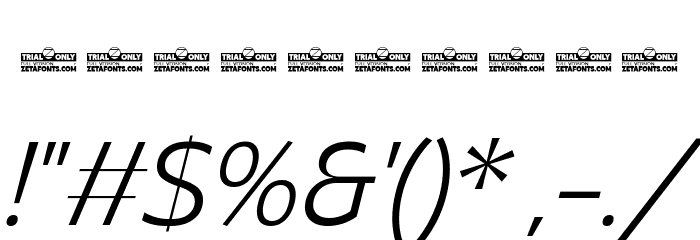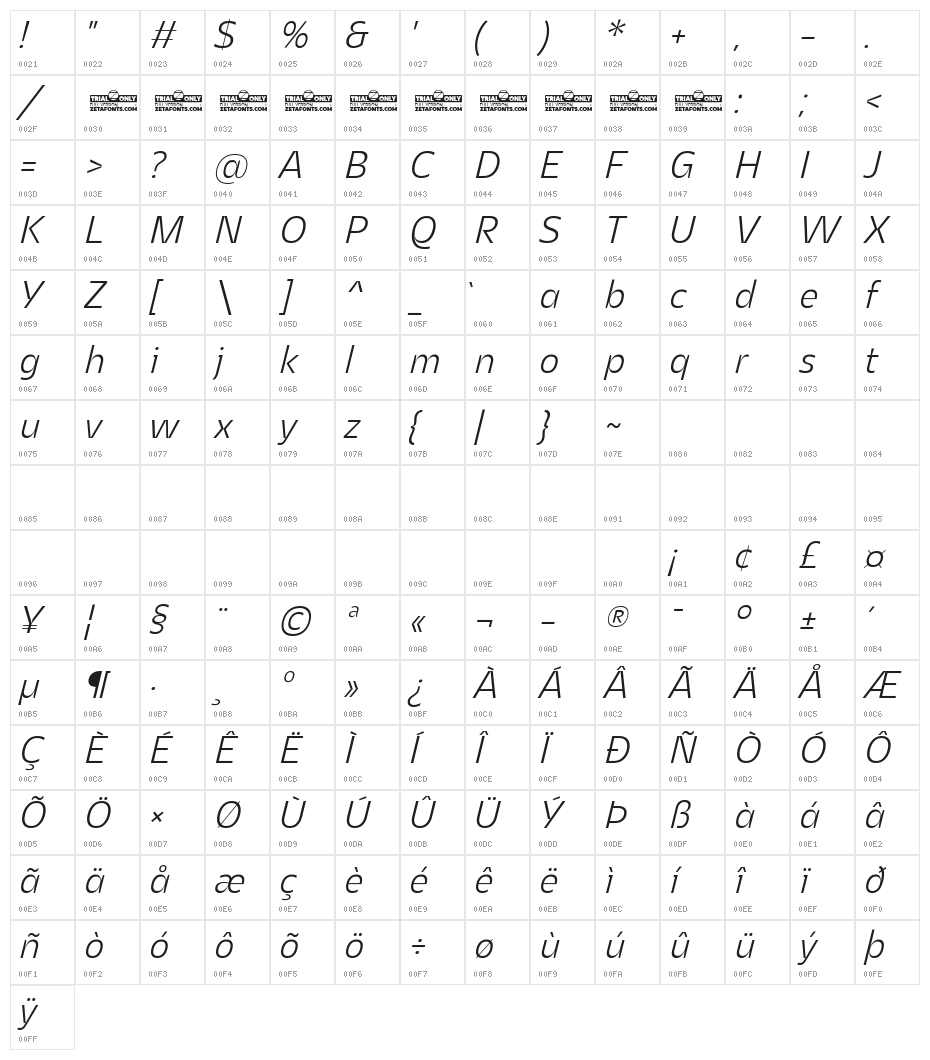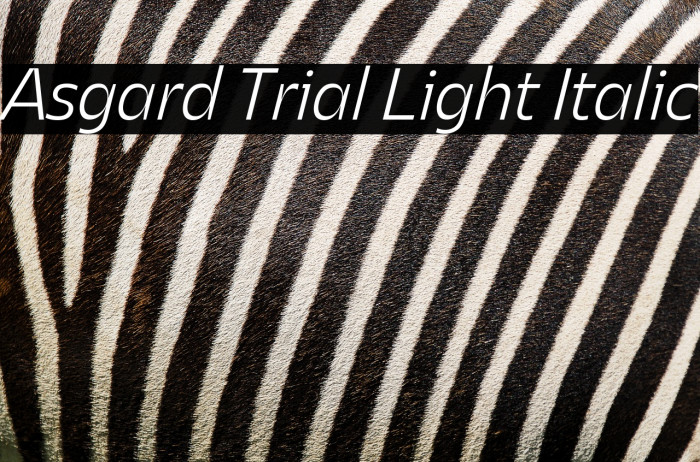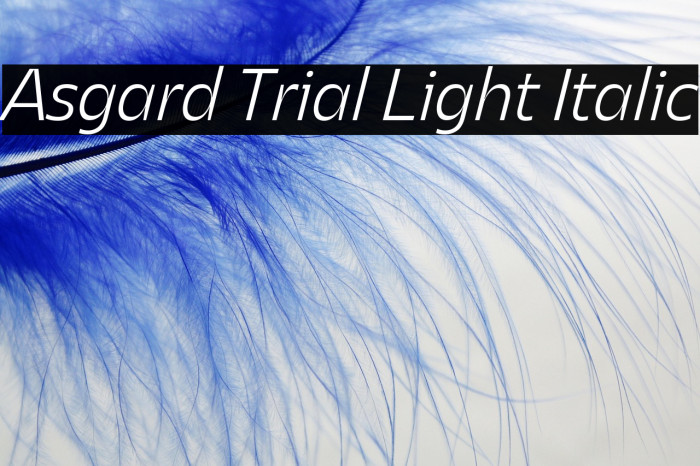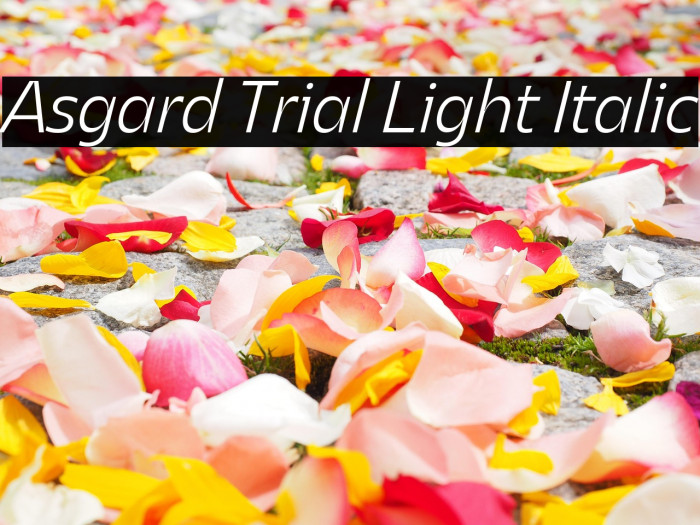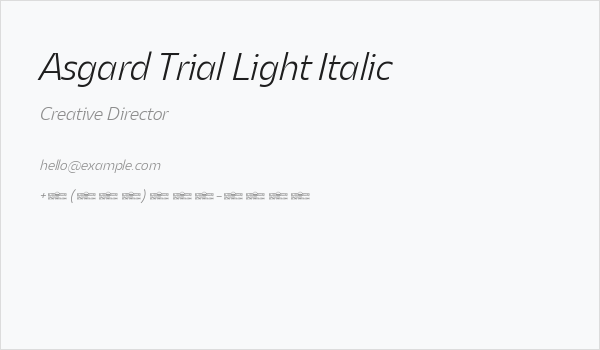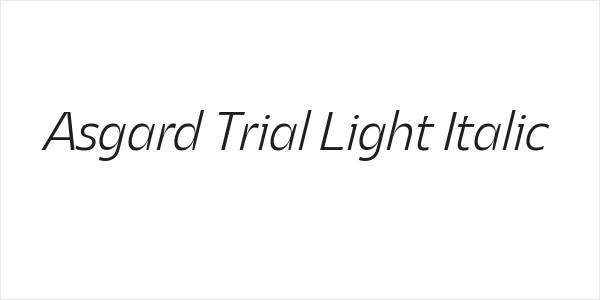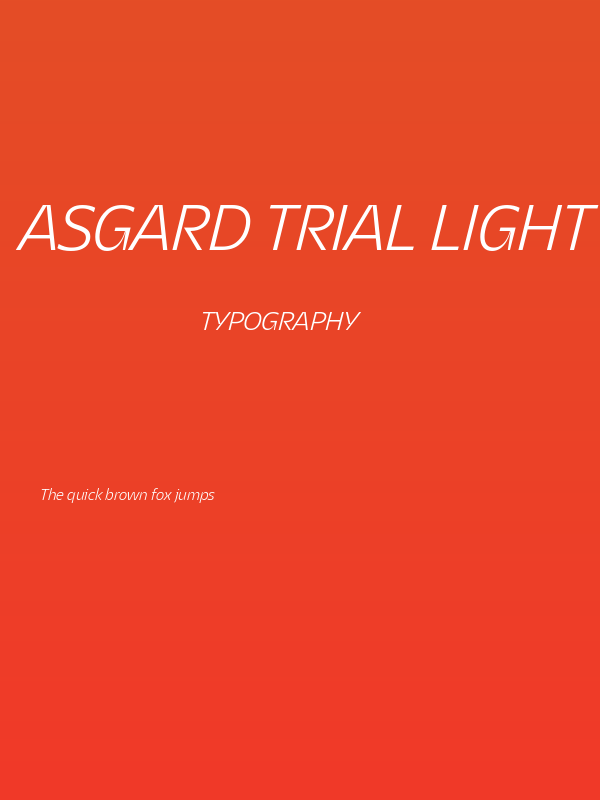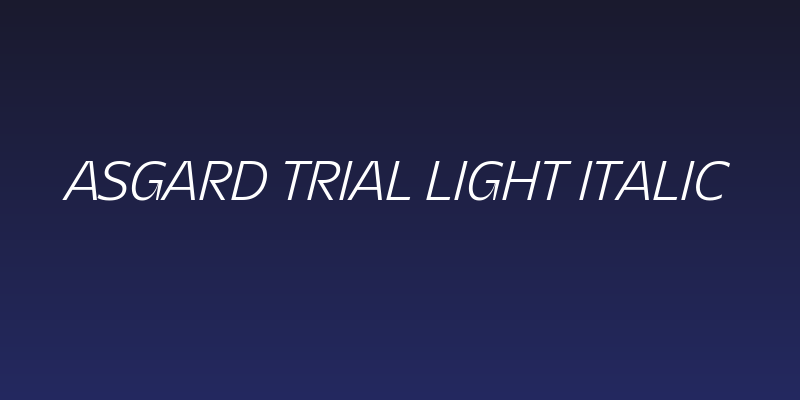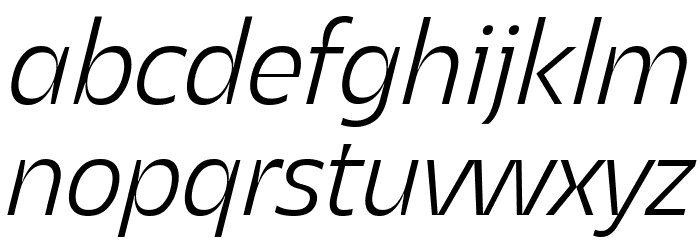
Asgard Trial Light Italic Font
Asgard Trial Light Italic Description
This font exhibits a sleek and modern design with a light weight and italic style. The characters are elegantly slanted, providing a sense of motion and sophistication. The strokes are consistent and smooth, with a low contrast between thick and thin lines, contributing to its clean appearance. The overall design is minimalistic, making it suitable for contemporary projects. The spacing between characters is normal, ensuring readability while maintaining a stylish look. This font is versatile, ideal for projects that require a touch of elegance and modernity.